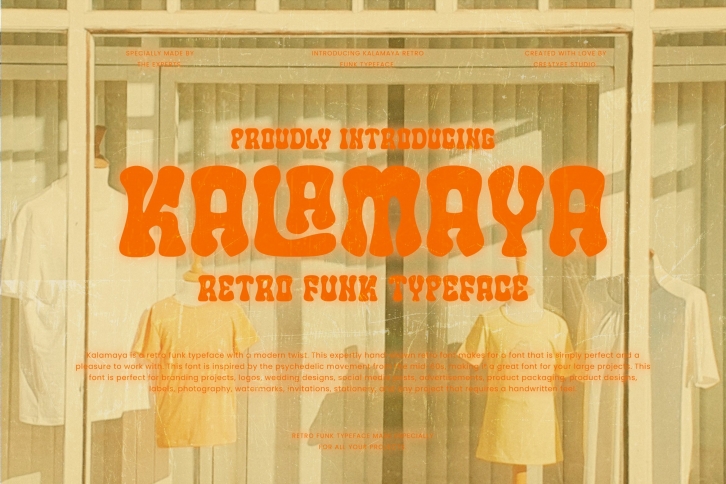
Kalamaya Retro Funk is a gorgeous font that was realeased on August 1, 2022. The font can be used in many style contexts and design environments. Perfect for invitations, magazines, websites, logos, and more! It was designed by Creatype Studio and the file size is 12.91 MB. Thanks for checking out this font!